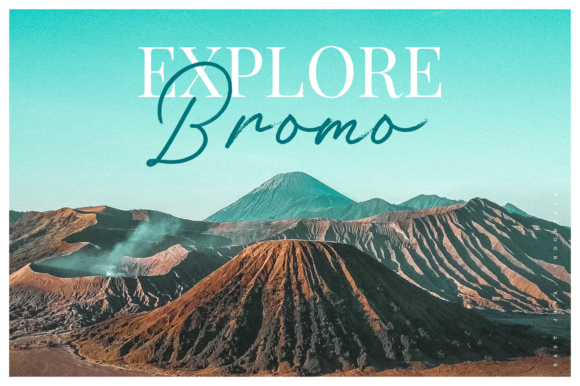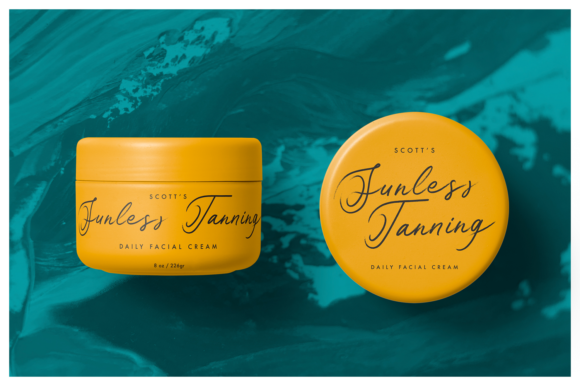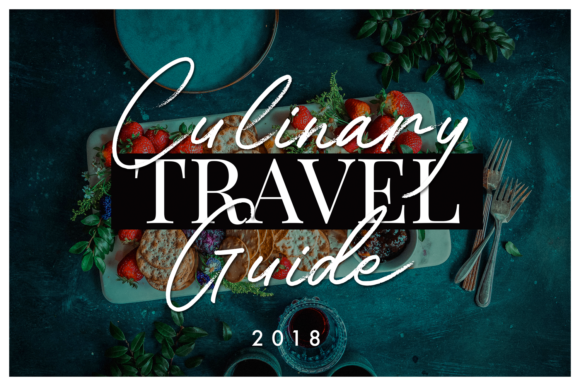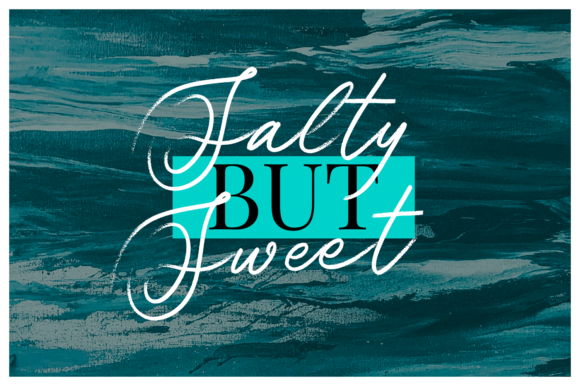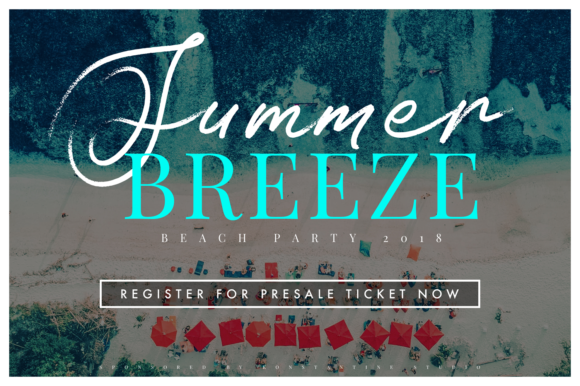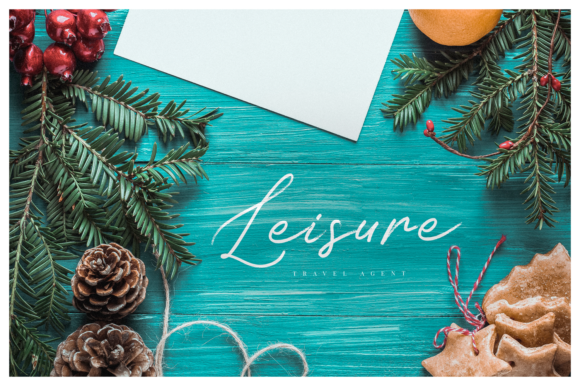
The Ultimate Guide to Asian Skyline Font: Elevate Your Designs with this Stunning Cursive Handwritten Font
I’ll never forget the time I was working on a project for a client who wanted a font that was both elegant and playful. I had spent hours scouring the internet for the perfect font, but nothing seemed to fit the bill. That was until I stumbled upon the Asian Skyline font. It was like a breath of fresh air – a beautiful, cursive handwritten font that added a touch of sophistication to my design. In this article, I’ll share my experience with the Asian Skyline font, and show you how to make the most of its stunning features.
An Honest Review of Asian Skyline Font
So, what makes the Asian Skyline font so special? Let’s take a closer look.
What I Love About Asian Skyline Font
• ✨ Unique and eye-catching design: The Asian Skyline font has a distinctive, cursive style that’s sure to make your designs stand out from the crowd.
• ✅ Highly legible: Despite its elegant appearance, the font is surprisingly easy to read, making it perfect for use in a variety of design projects.
• 💫 Versatile: The Asian Skyline font can be used in everything from logos and branding materials to social media graphics and invitations.
While the Asian Skyline font is an amazing addition to any design project, there are a few things to keep in mind:
• 🤔 Limited use in very formal designs: While the font is elegant, it may not be the best choice for very formal designs, such as corporate reports or academic papers.
• ⚠️ May not be suitable for very small text sizes: As with any script font, the Asian Skyline font may be difficult to read at very small text sizes.
One of the best things about the Asian Skyline font is its OpenType features and glyphs. These features allow you to customize the font to fit your design needs, adding an extra layer of creativity and flexibility to your designs.
Some of the OpenType features and glyphs available in the Asian Skyline font include:
• Stylistic alternates: These allow you to switch between different font styles, such as bold, italic, and regular.
• Swashes: These are decorative flourishes that can be added to letters and words.
• Ligatures: These are special character combinations that can be used to create a more natural, flowing text.
The Backstory Behind Asian Skyline Font
The Asian Skyline font was designed by a team of creatives who wanted to create a font that was both elegant and playful. Inspired by the stunning skylines of Asian cities, the font features a unique, cursive style that’s perfect for creating a wide range of design projects.
Can I use Asian Skyline font for my logo? Yes, the Asian Skyline font is perfect for creating logos and branding materials. Its unique, cursive style is sure to make your logo stand out from the crowd.
Is Asian Skyline font easy to read? Yes, despite its elegant appearance, the Asian Skyline font is surprisingly easy to read, making it perfect for use in a variety of design projects.